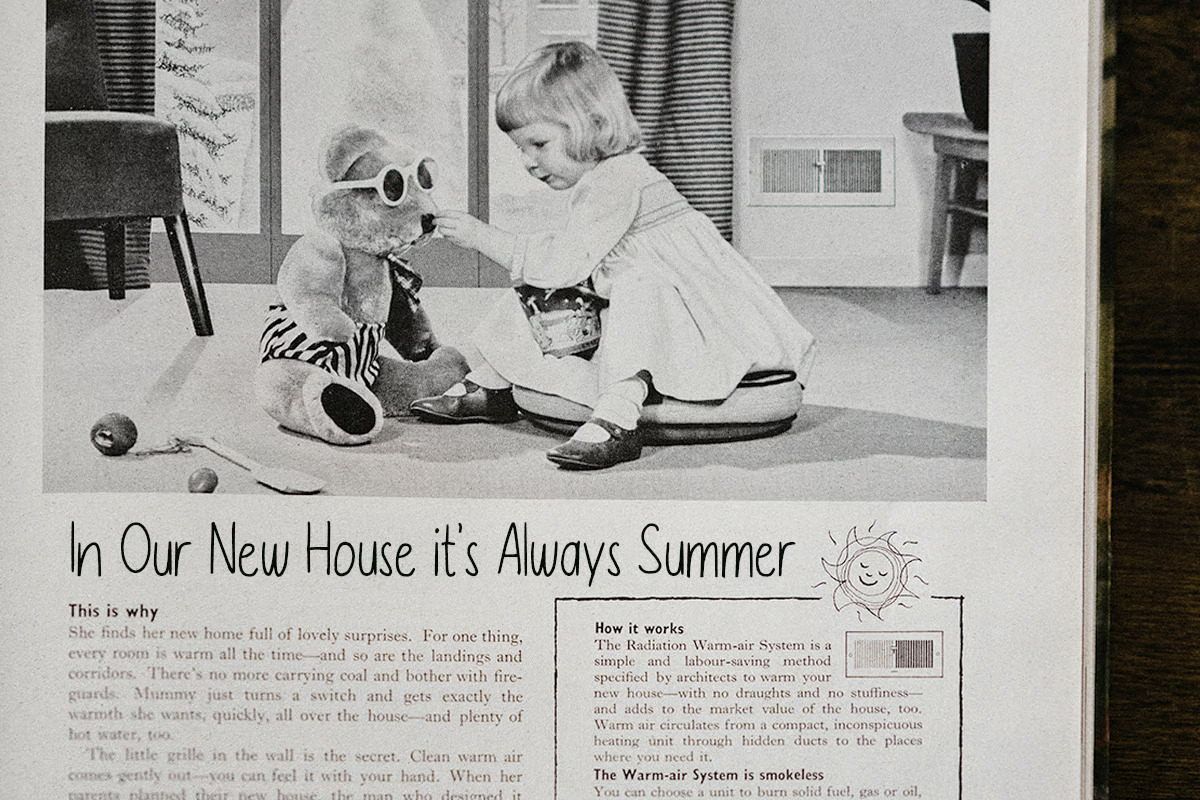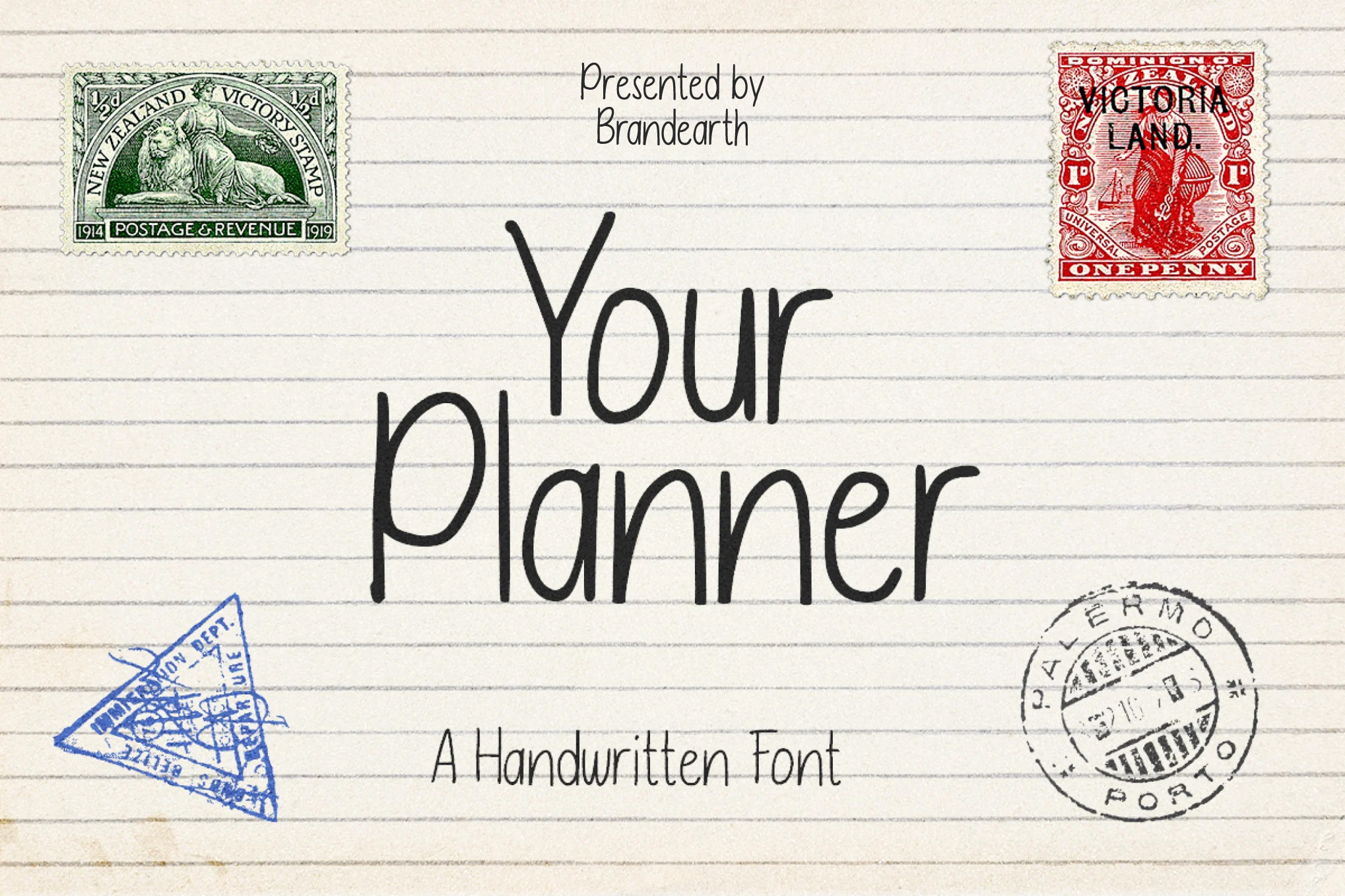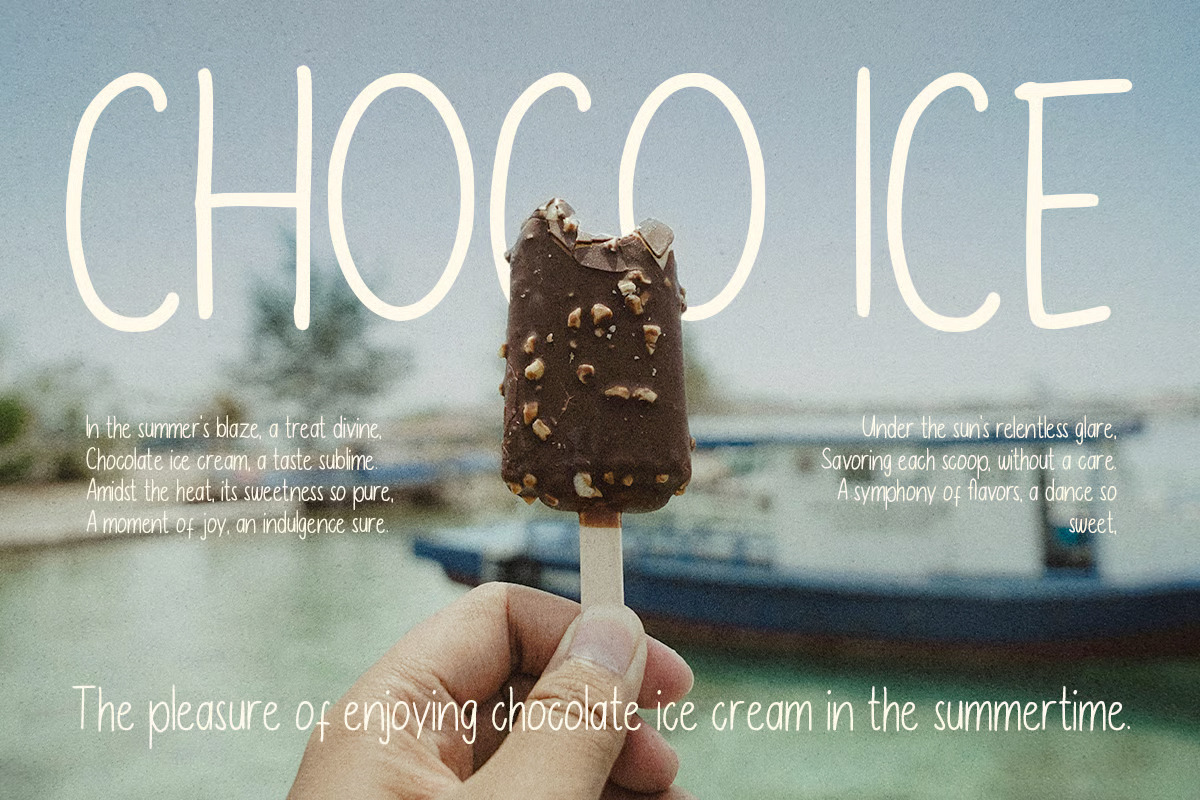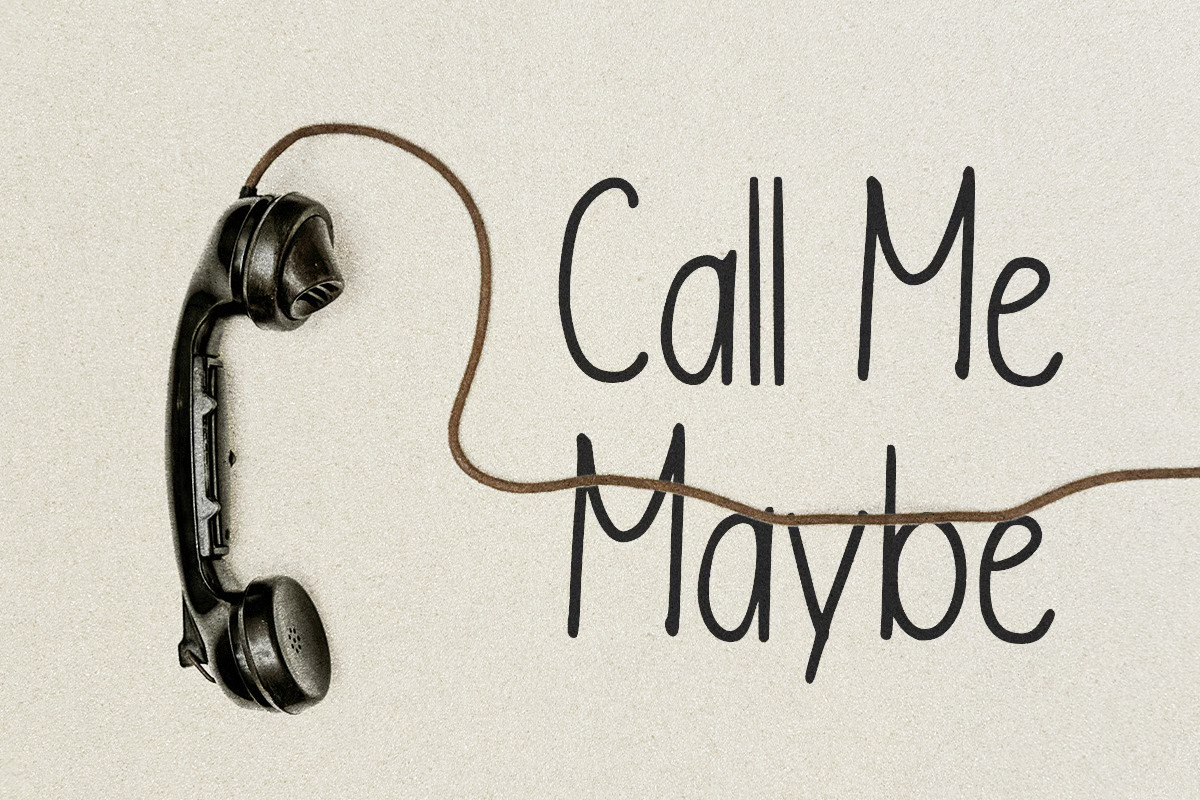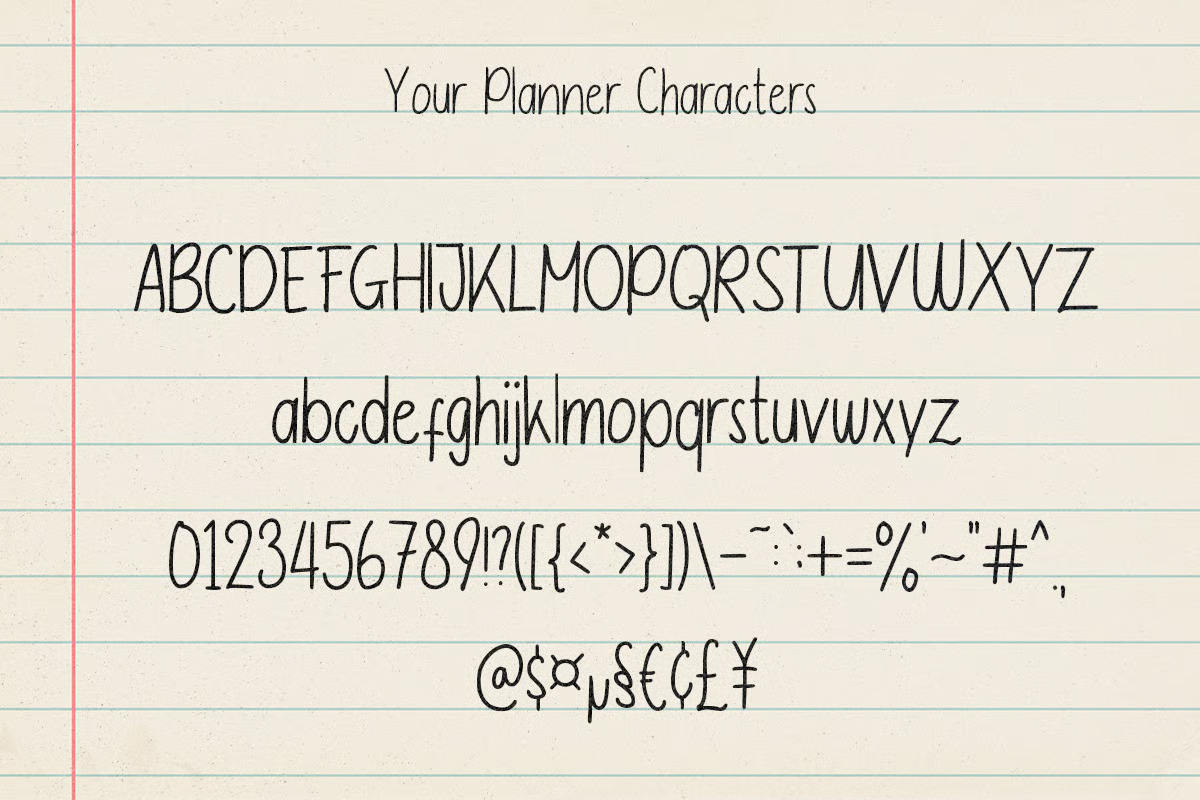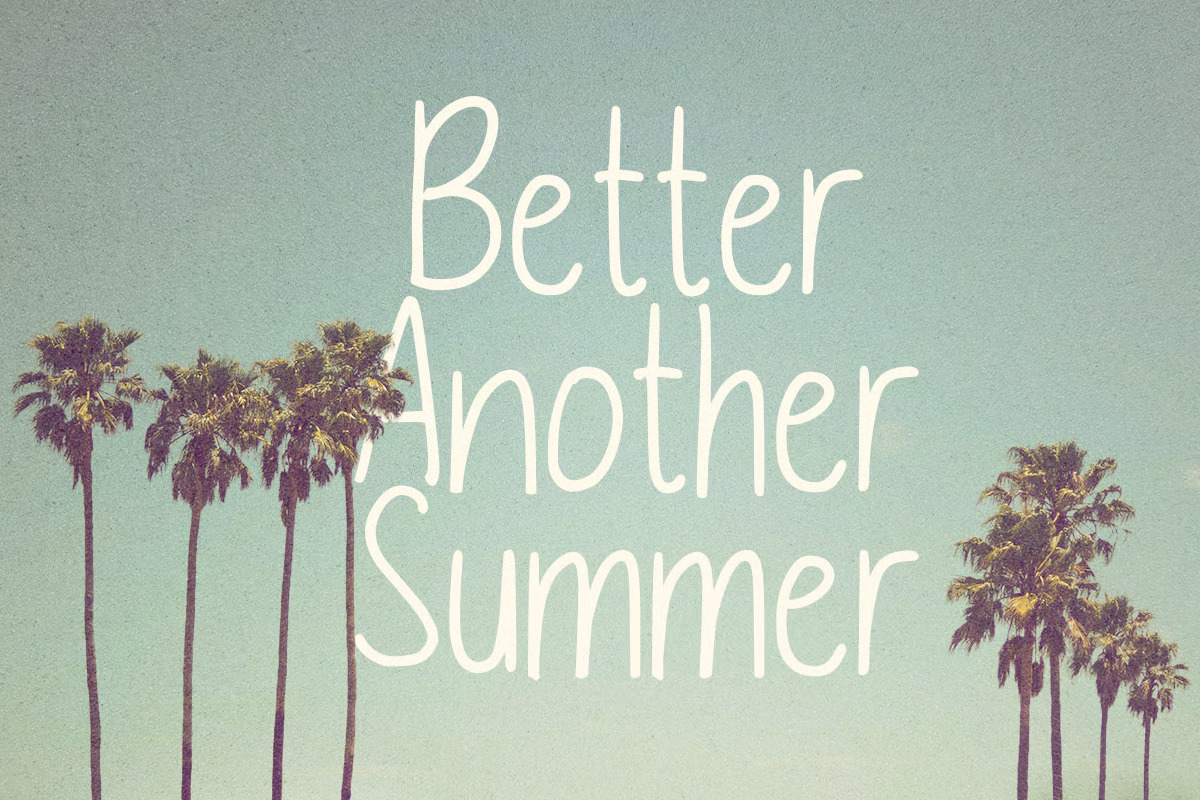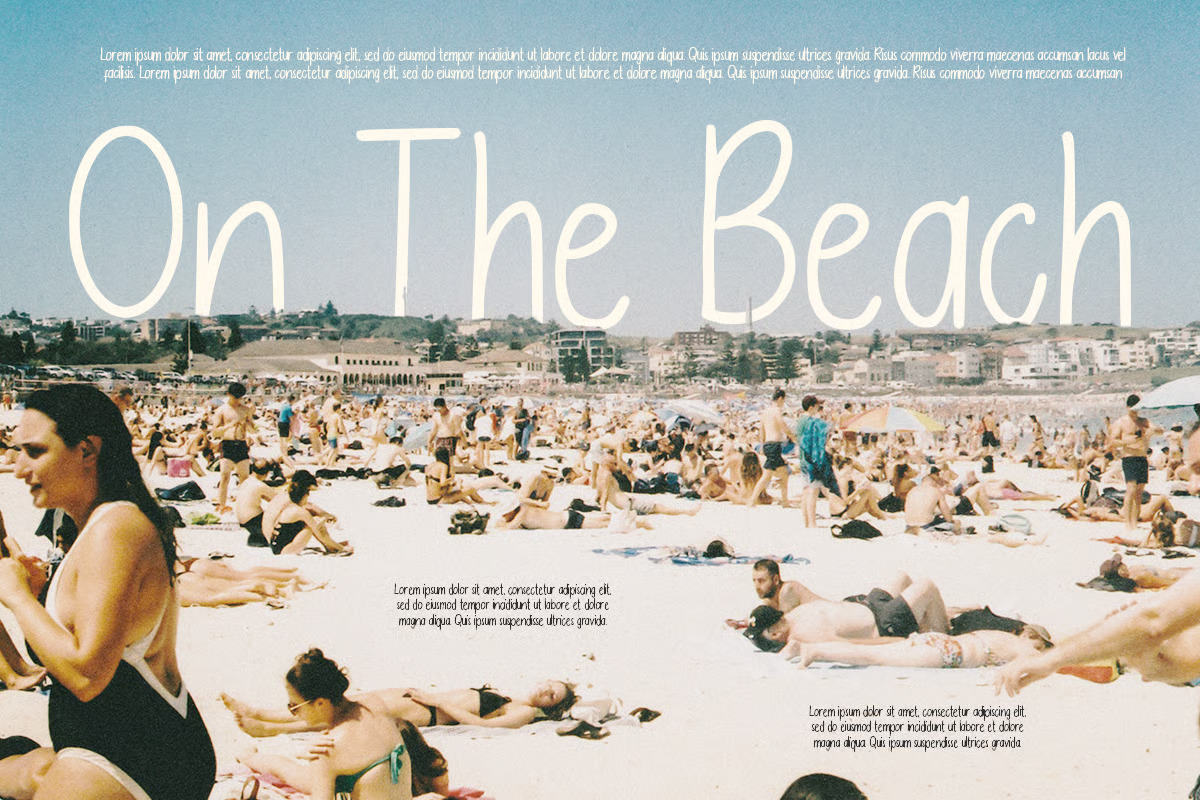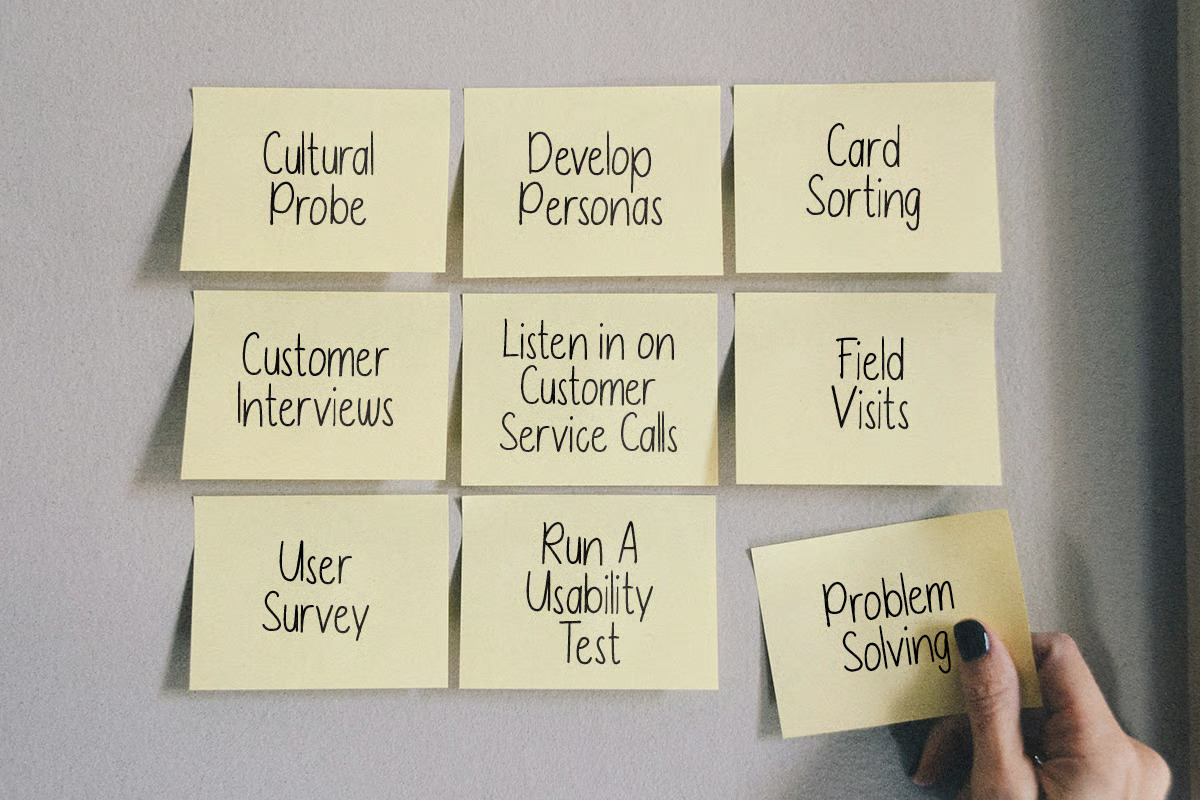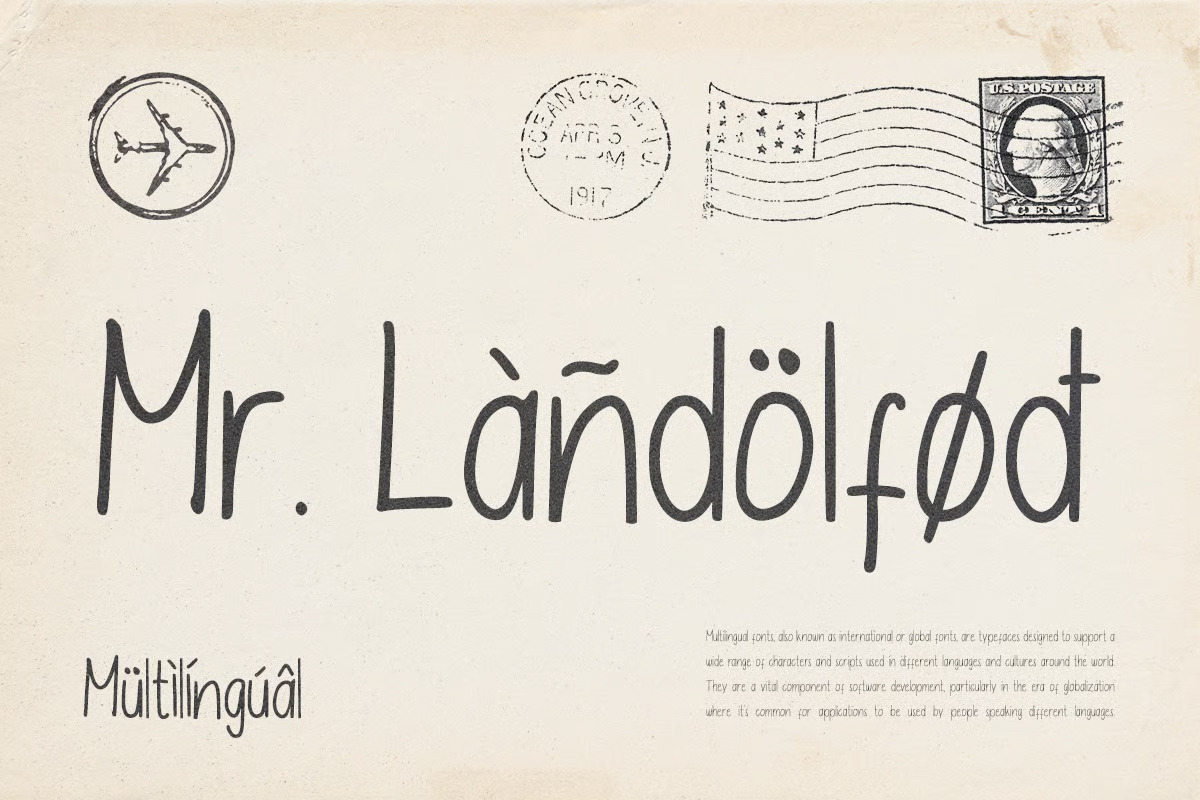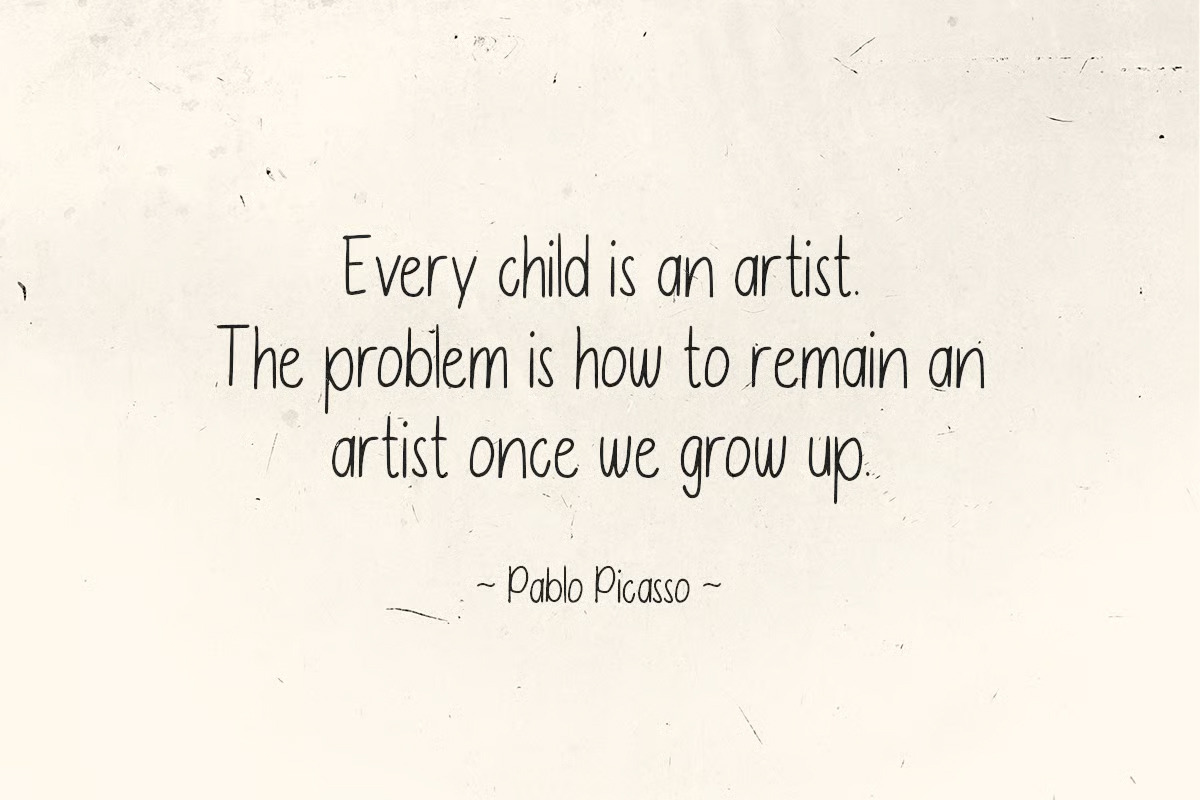
Your Planner - A Handwritten Font
Your Planner is a casual, handwritten pen font that captures the warmth and personality of everyday handwriting. Designed to evoke a sense of authenticity and charm, it blends naturally into personal, heartfelt, and creative contexts. Its energy is friendly, relaxed, and genuine—perfect for anyone looking to bring a personal touch to their designs.
The letterforms in Your Planner are crafted with smooth, consistent strokes and a natural, unpolished rhythm, giving the typeface a relaxed and effortless appearance. It carries the charm of real handwriting while remaining clean and easy to read, making it perfect for journals, planners, notes, and everyday creative projects.
With its casual, human touch, Your Planner bridges the gap between personal and polished. It provides a warm, approachable feel while remaining versatile enough for branding, packaging, and social media content.